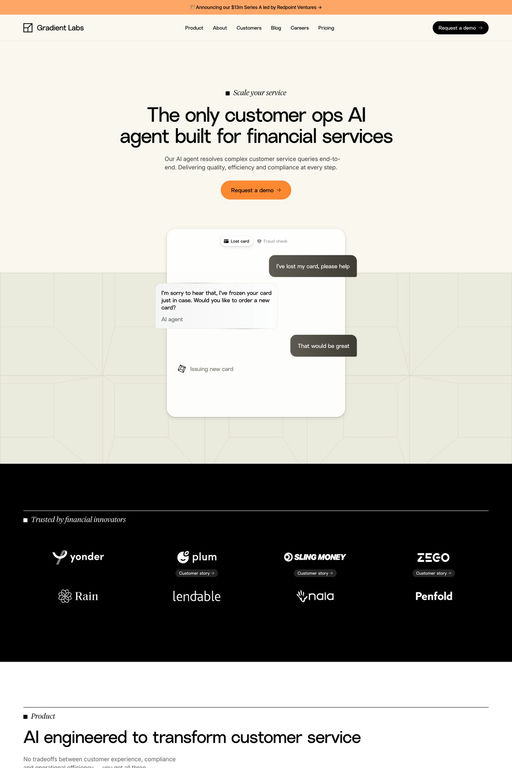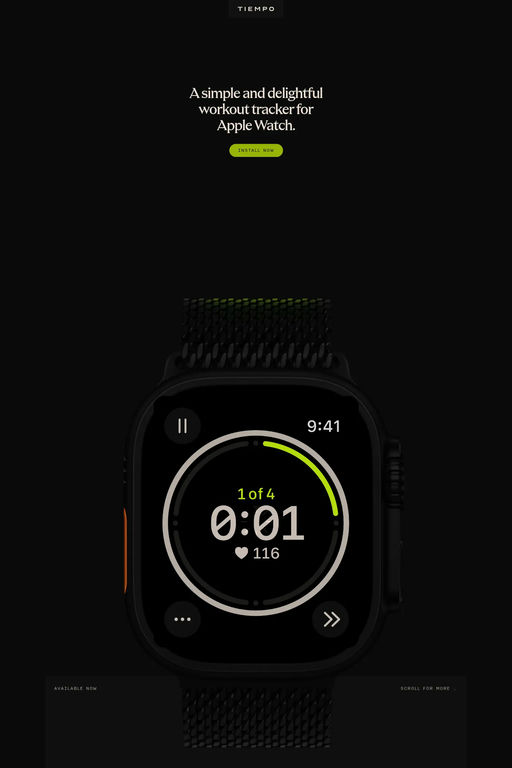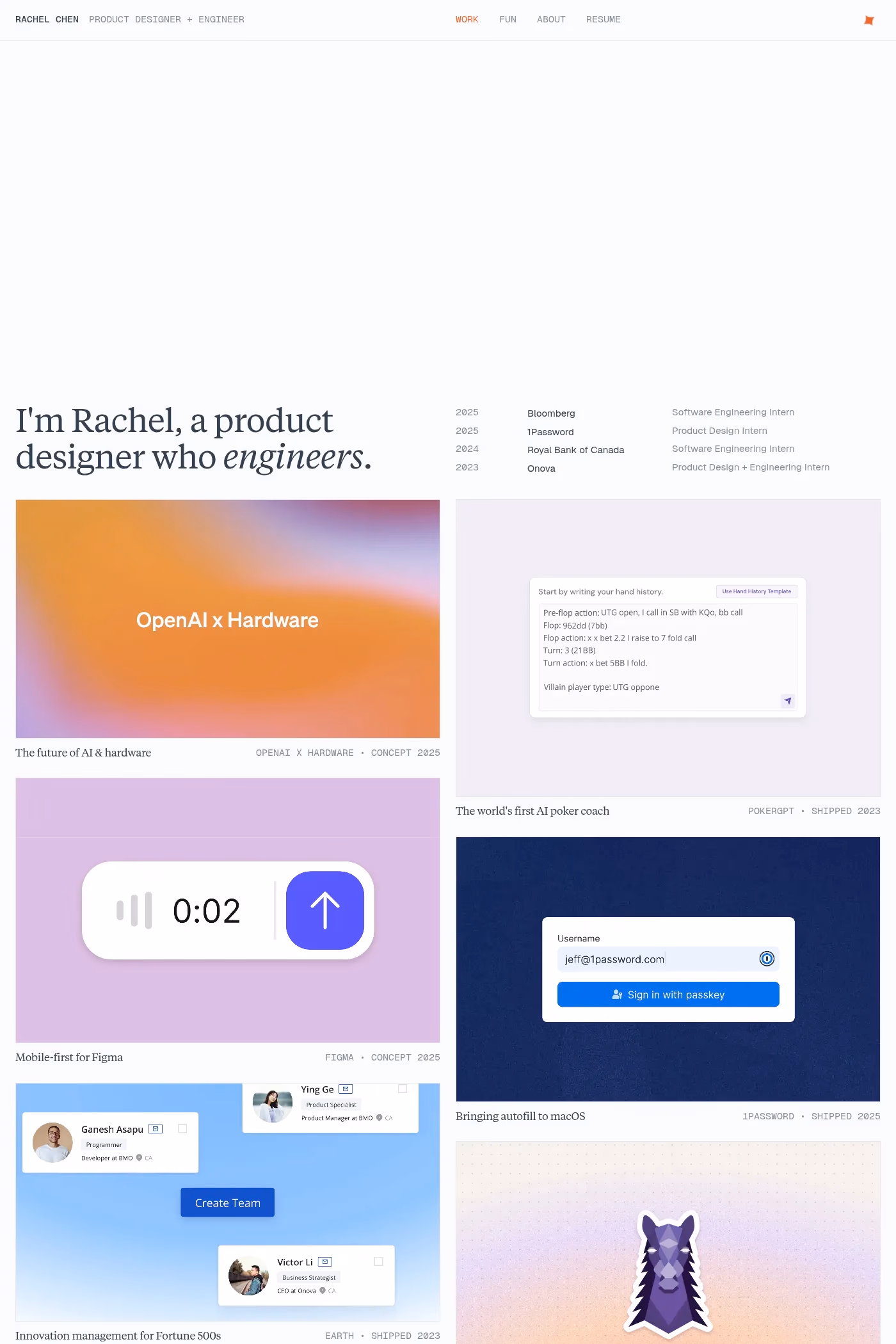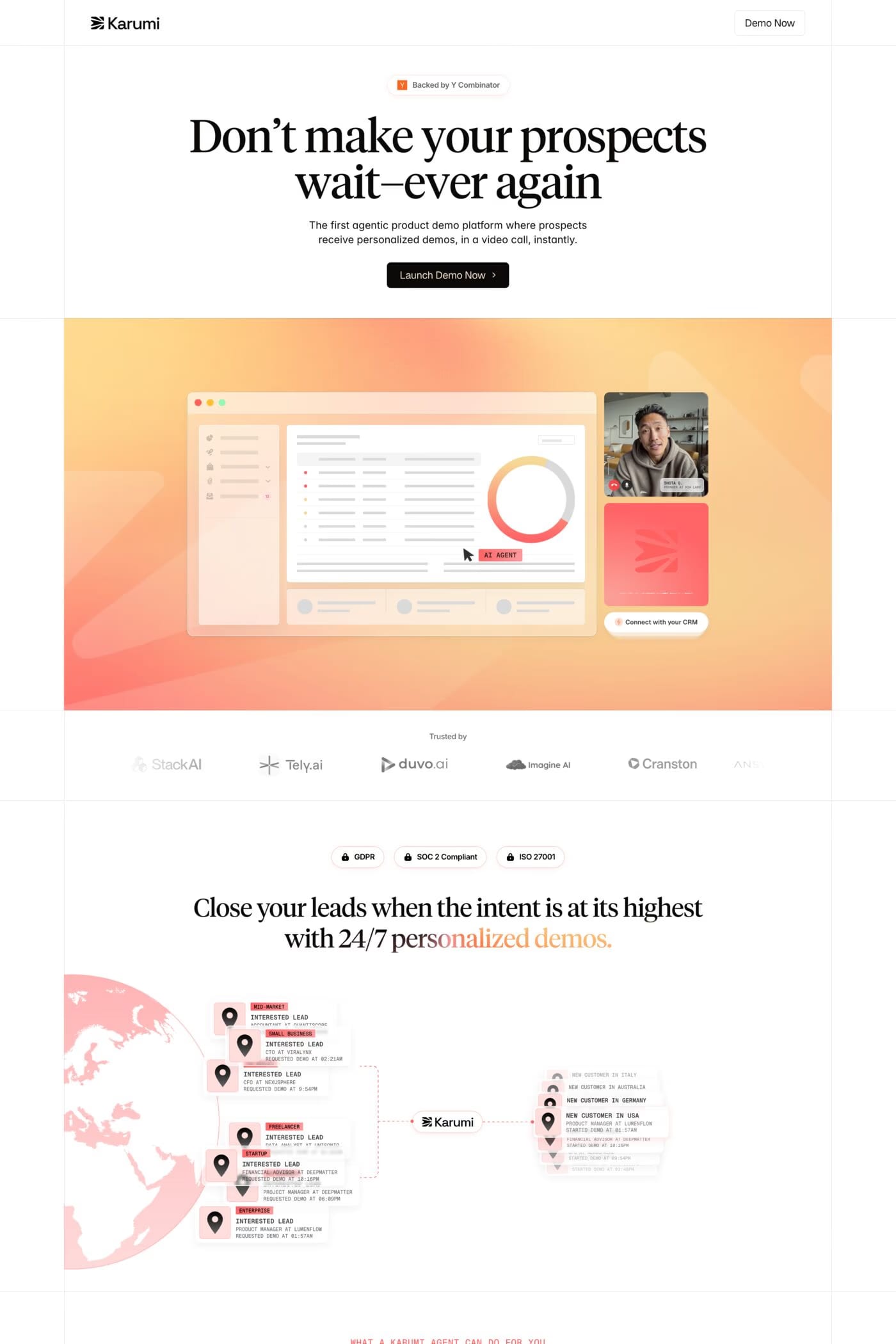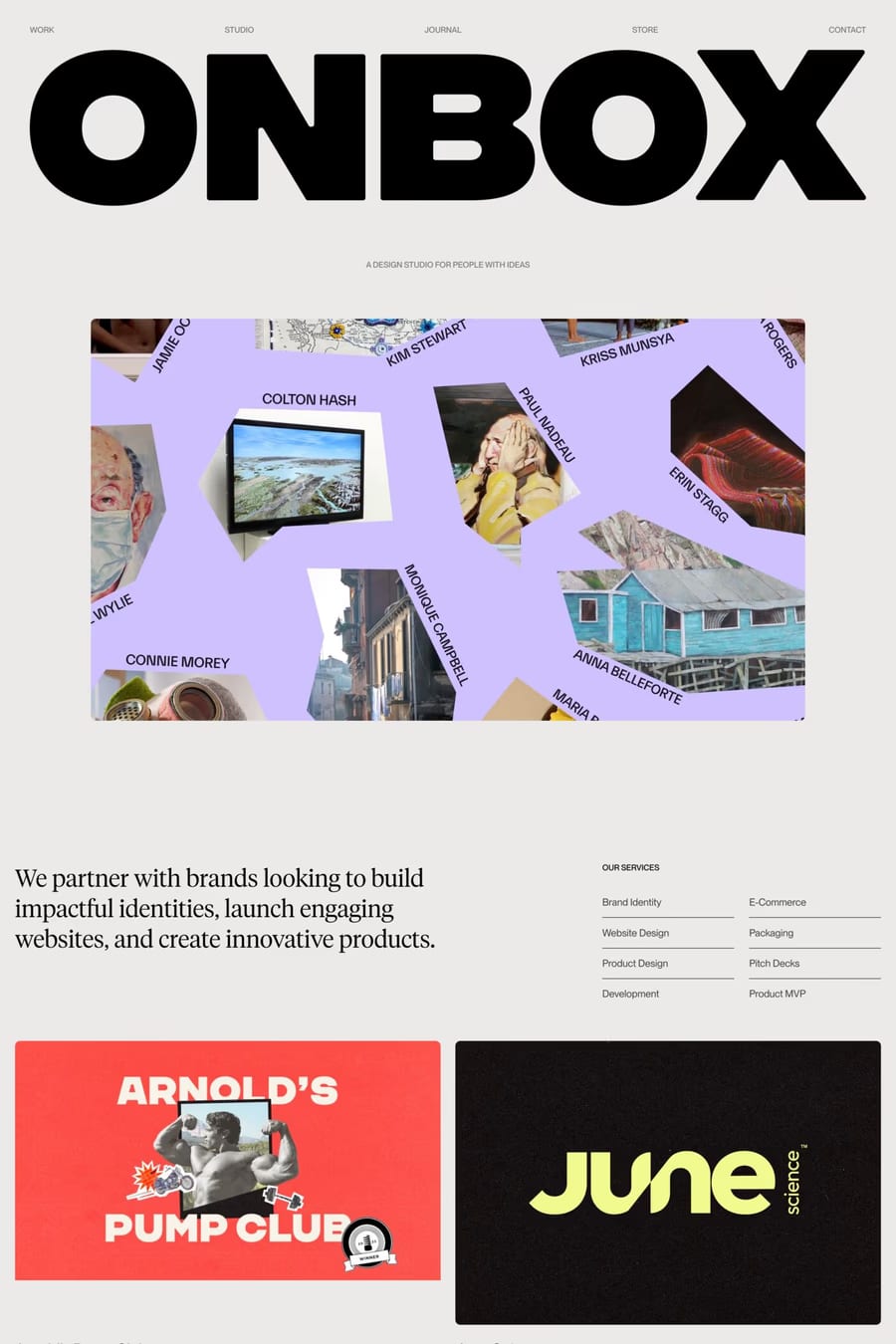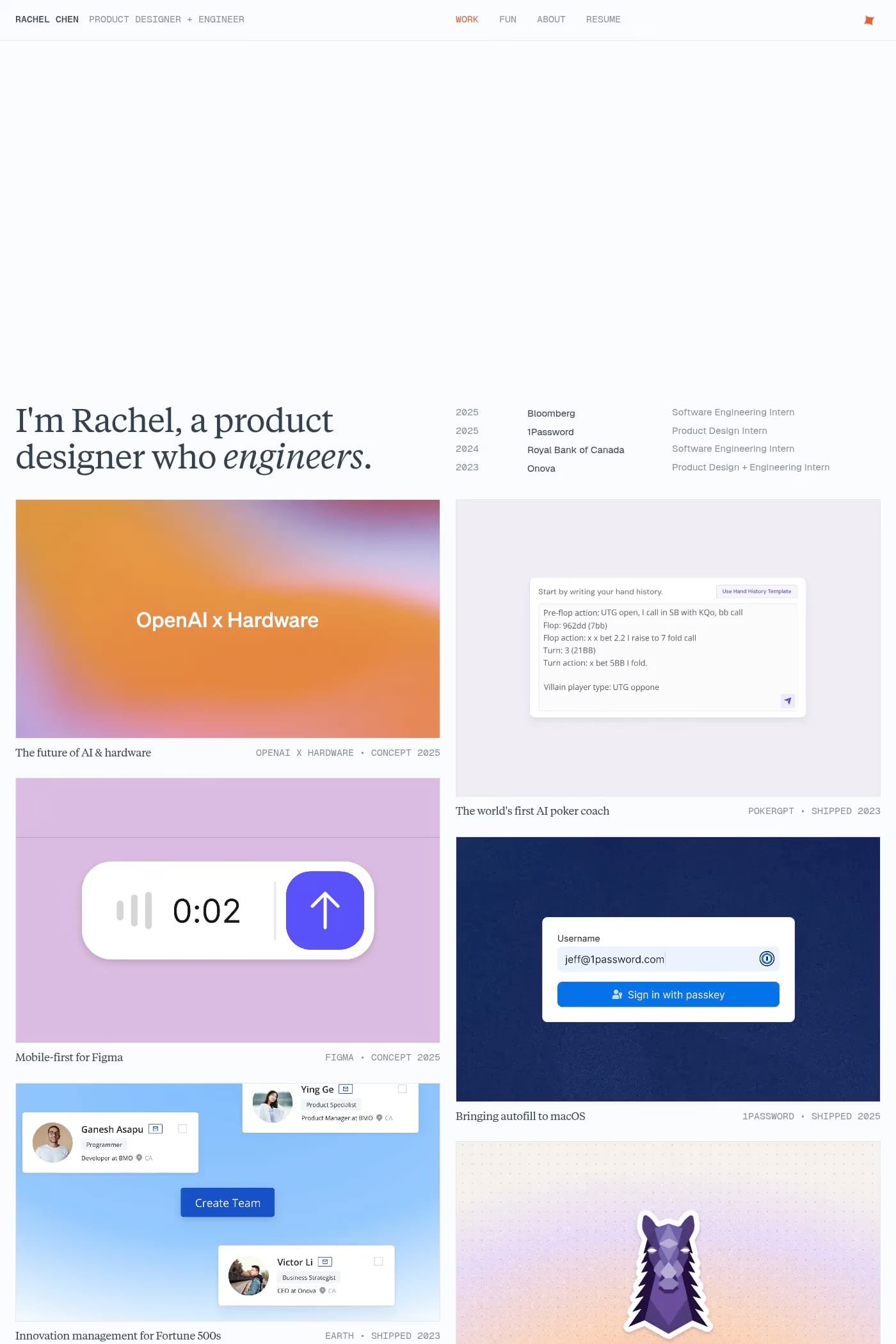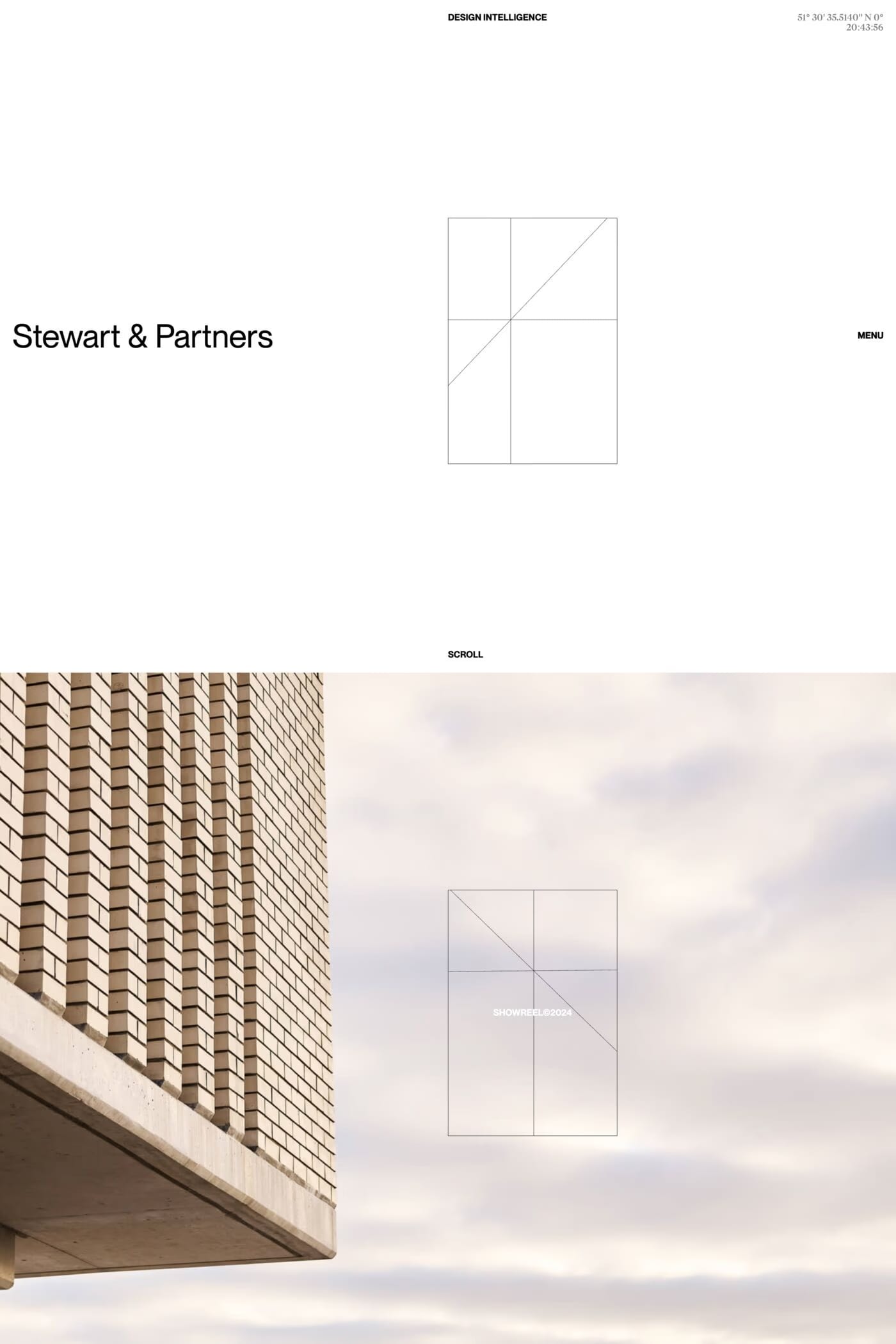
Tiempos is a serif typeface from Klim Type Foundry.
The Tiempos Collection is a modern serif family for editorial typography. Tiempos Text takes the functionality of Plantin and Times, gently updating it for contemporary use. It’s robust and clear, perfect for economic and legible typesetting. Tiempos Headline is designed for larger headline sizes, striking a balance between practicality and elegance.
A1 features 9 websites using Tiempos, including Ivan Kalkaev, Karumi AI, and Stewart & Partners. They lean towards Serif, Animated, and Lines design styles, and they’re most often built with Framer, Next.js, and Webflow.